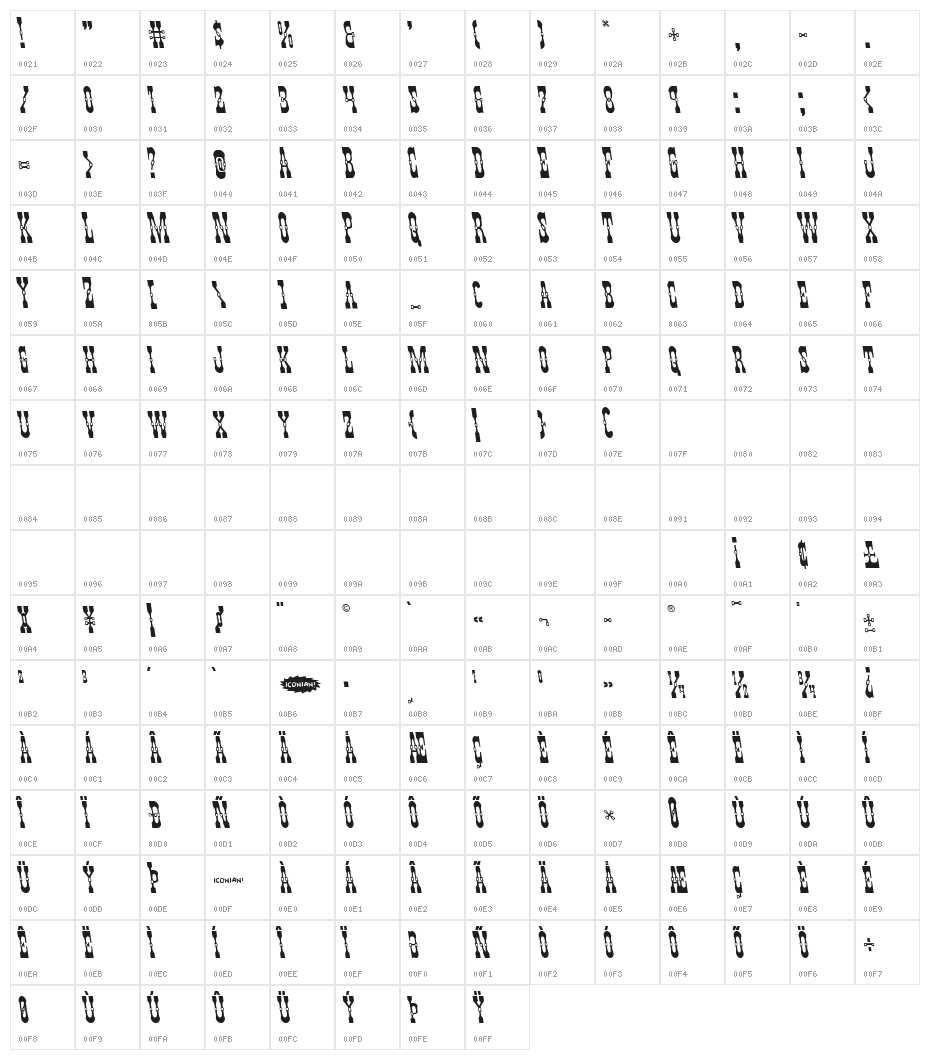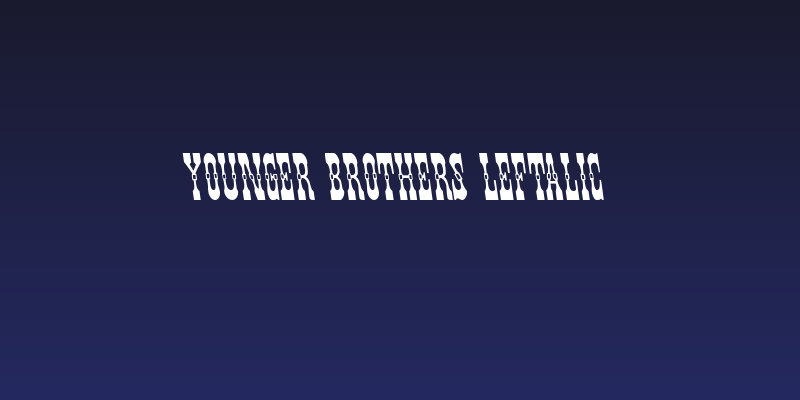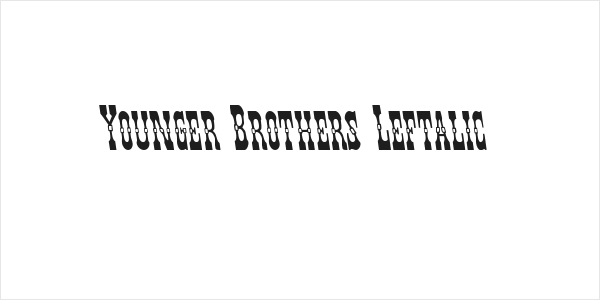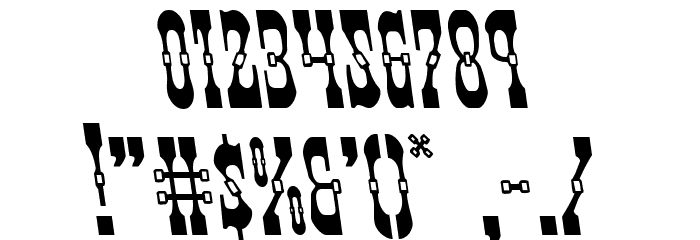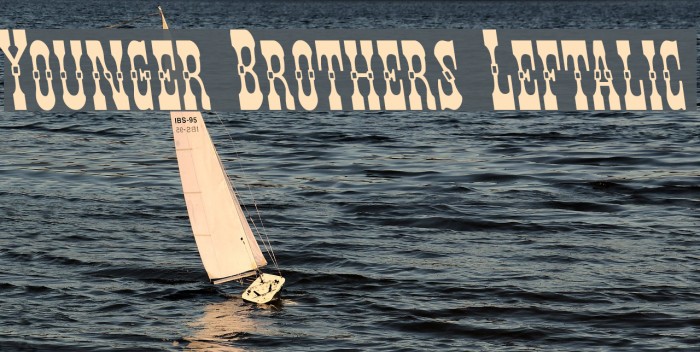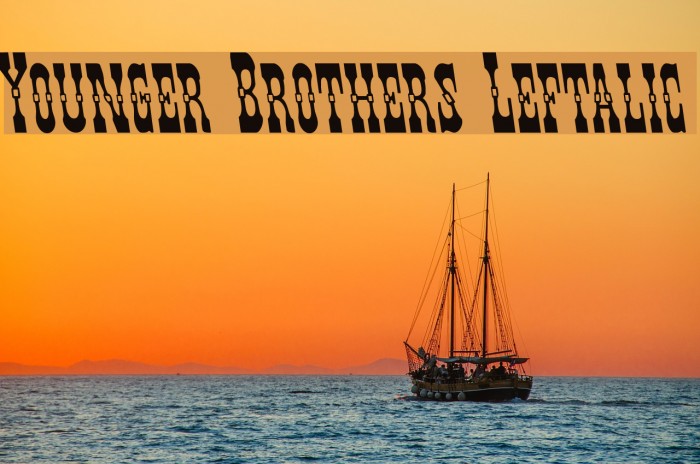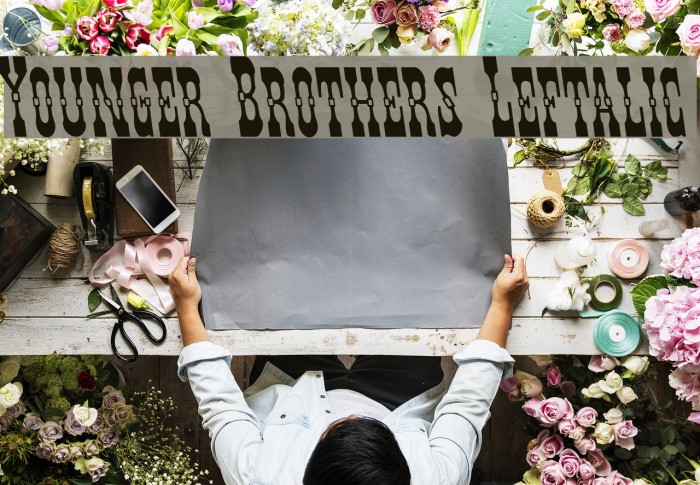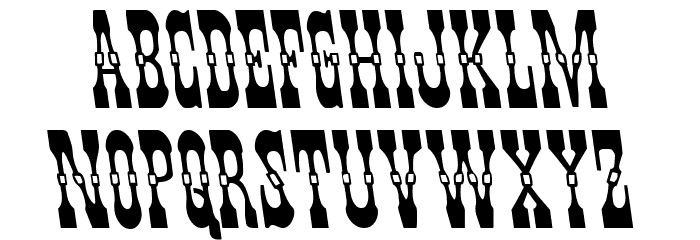
Younger Brothers Leftalic Font
Younger Brothers Leftalic Description
This font features a bold, decorative style with a unique chain-link design incorporated into each character. The uppercase and lowercase letters, as well as numbers and special characters, exhibit a strong presence with their thick strokes and distinctive embellishments. The font's playful yet structured appearance makes it stand out, offering a creative twist on traditional letterforms. The italic slant adds a dynamic feel, enhancing its visual appeal. The overall design is both eye-catching and memorable, making it suitable for various creative applications.